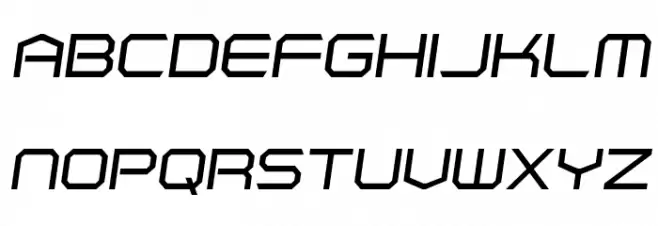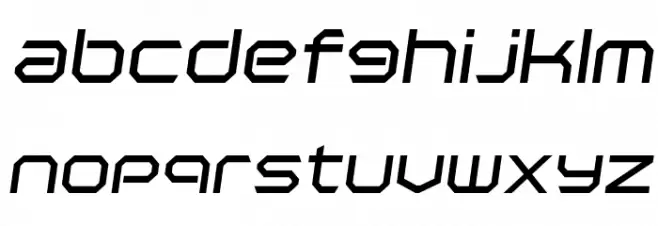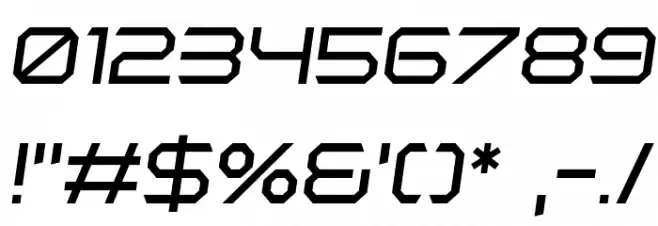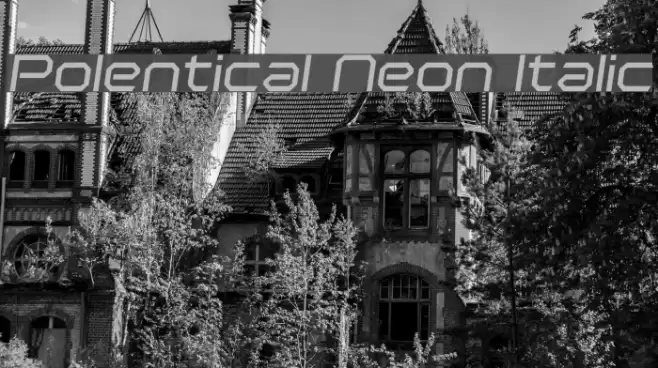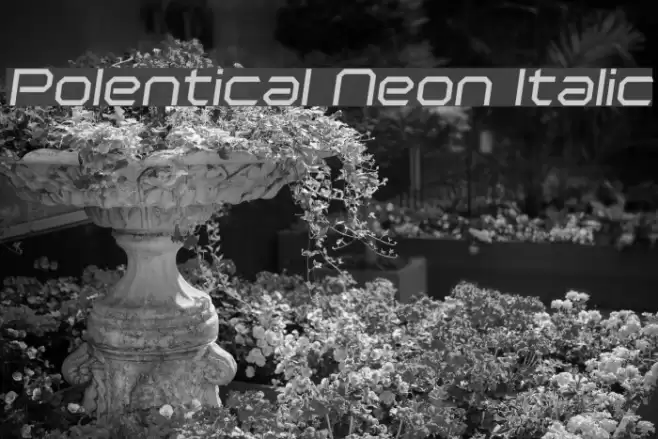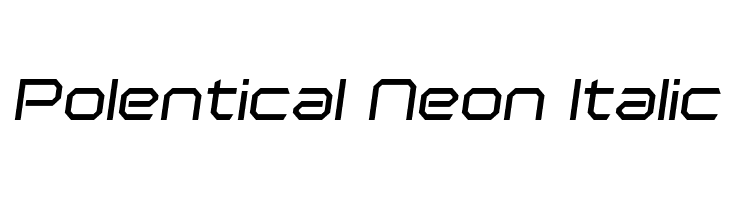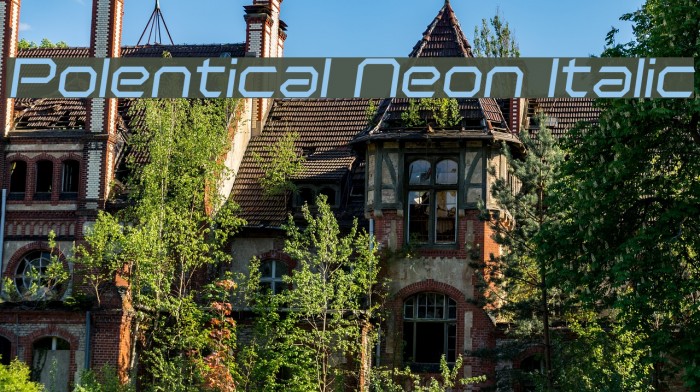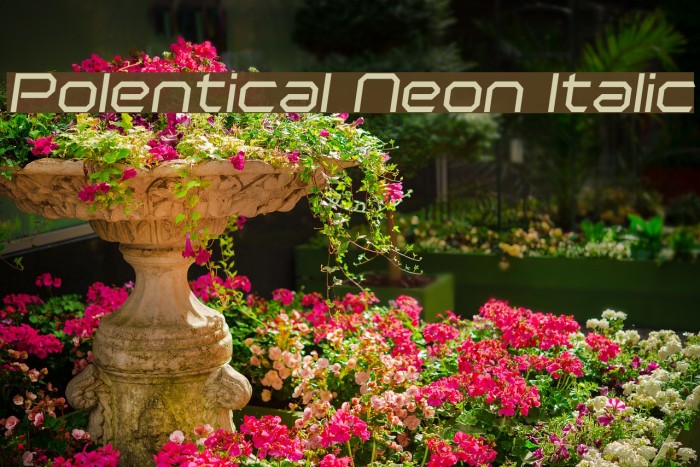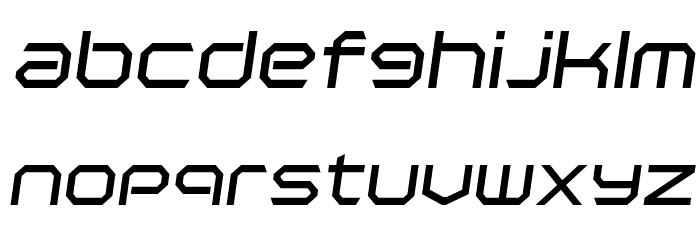
Polentical Neon Italic
This font features a futuristic and angular design, characterized by its geometric shapes and sharp edges. The italic style adds a dynamic and forward-leaning appearance, enhancing its modern aesthetic. Each character is crafted with precision, maintaining a consistent stroke width that contributes to its sleek and streamlined look. The uppercase and lowercase letters are distinct yet harmonious, while the numerals and special characters complement the overall style. This font's unique structure makes it stand out, offering a visually striking option for various design applications.
A futuristic, angular italic font with geometric shapes and sharp edges.
- Proposed Projects: Ideal for sci-fi themed designs, technology branding, video game interfaces, and modern advertising.